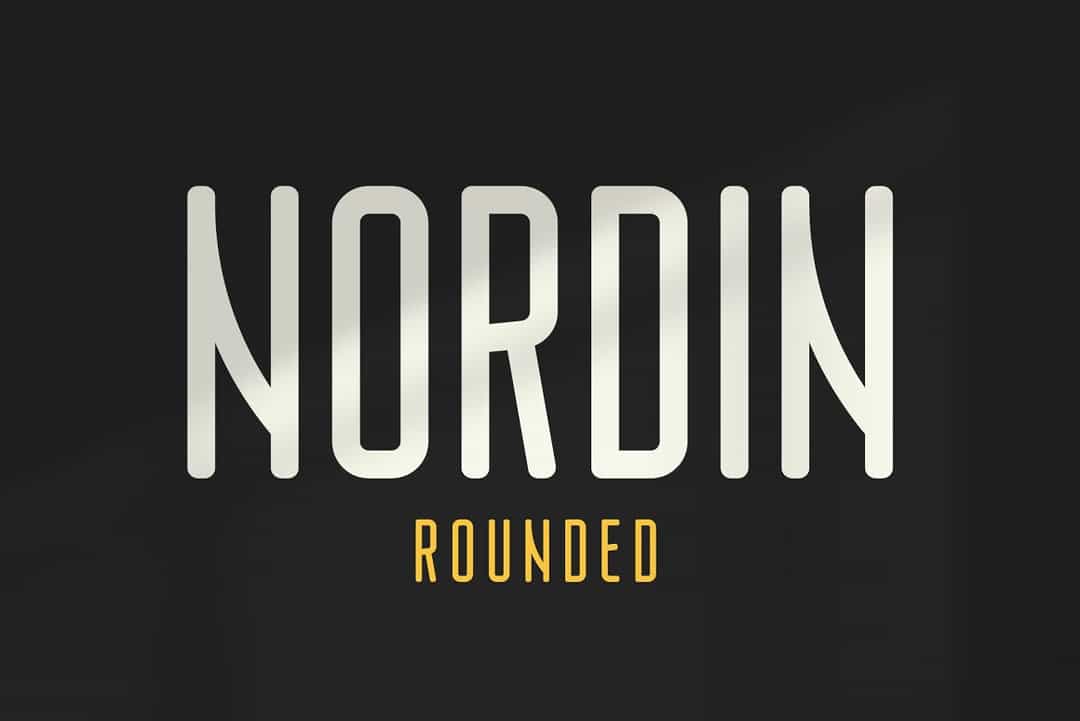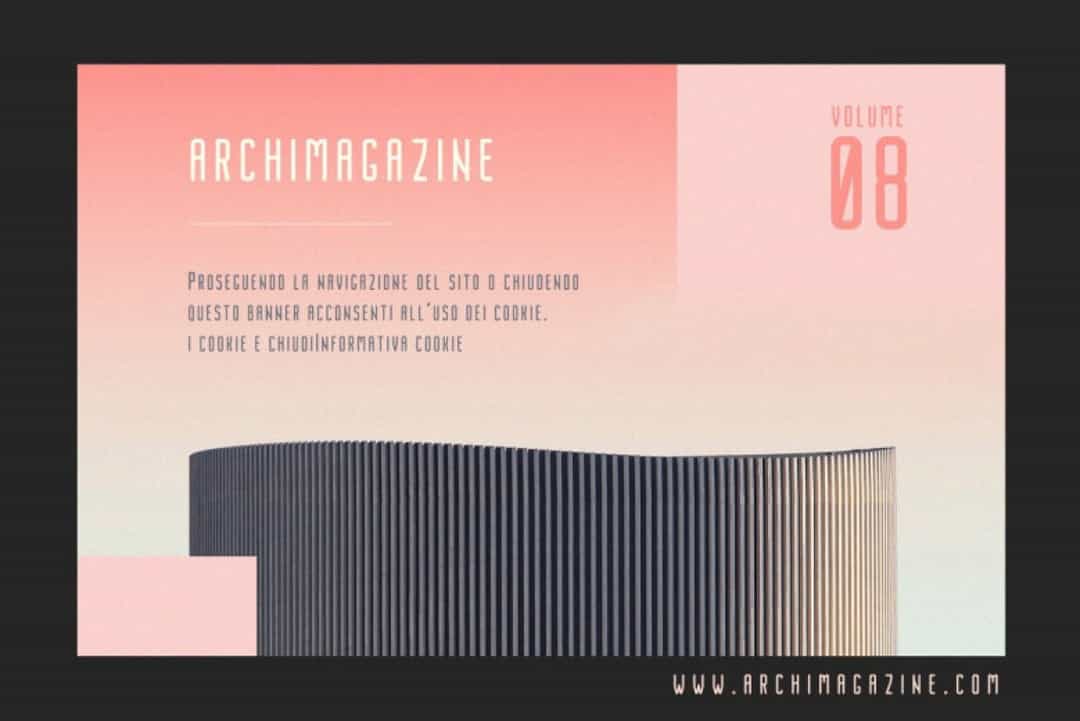
Nordin Rounded Condensed Sans Serif was inspired by European type book specimens, particularly Finland Rounded type standards. This font captures both its early days’ foundational strength while staying current with technological advancements – perfect for use by professionals. Nordin Rounded was developed from scratch to offer its unique combination of geometrical balance and optical appeal.